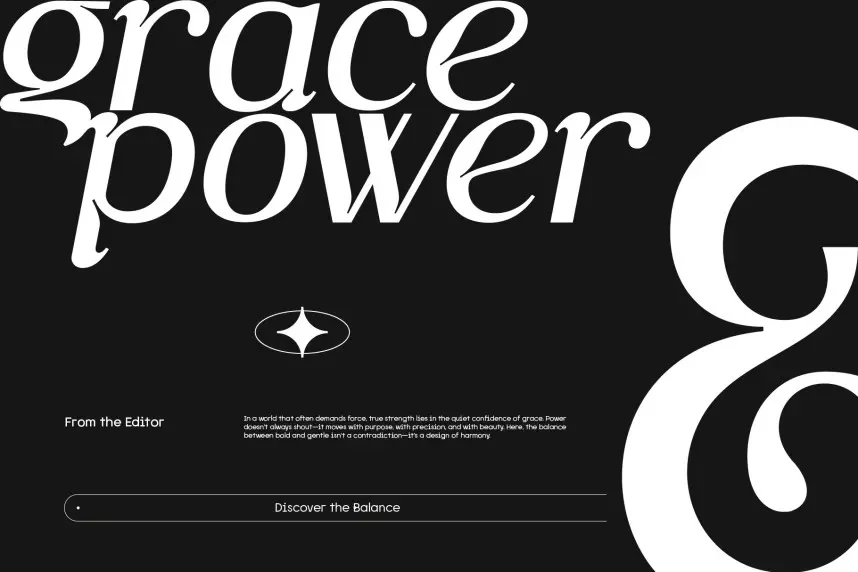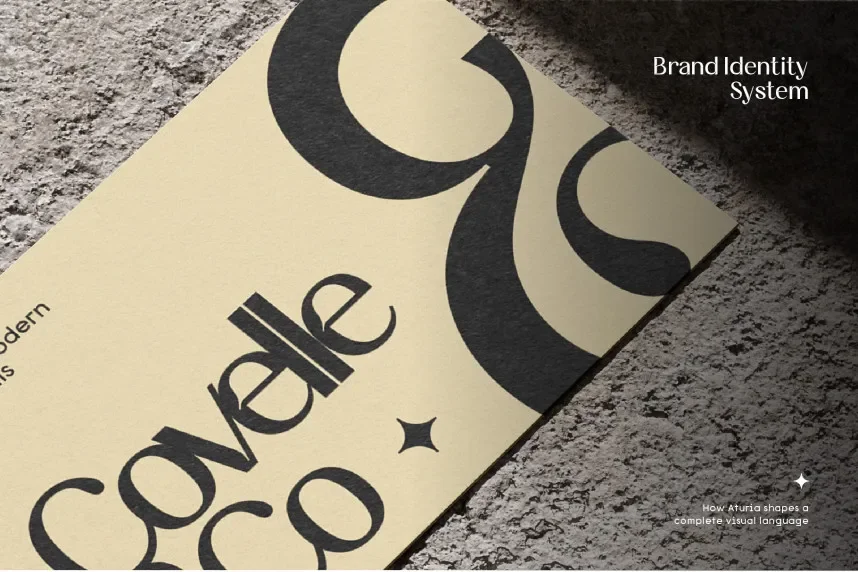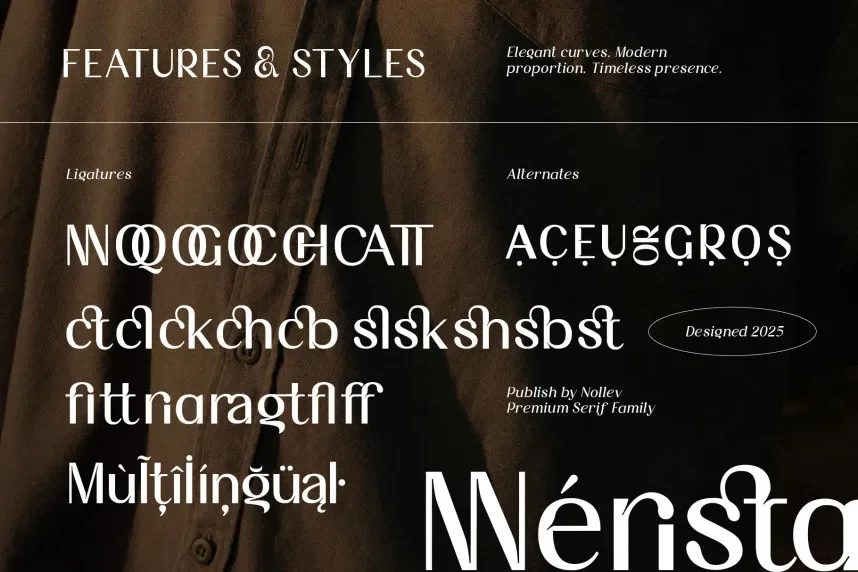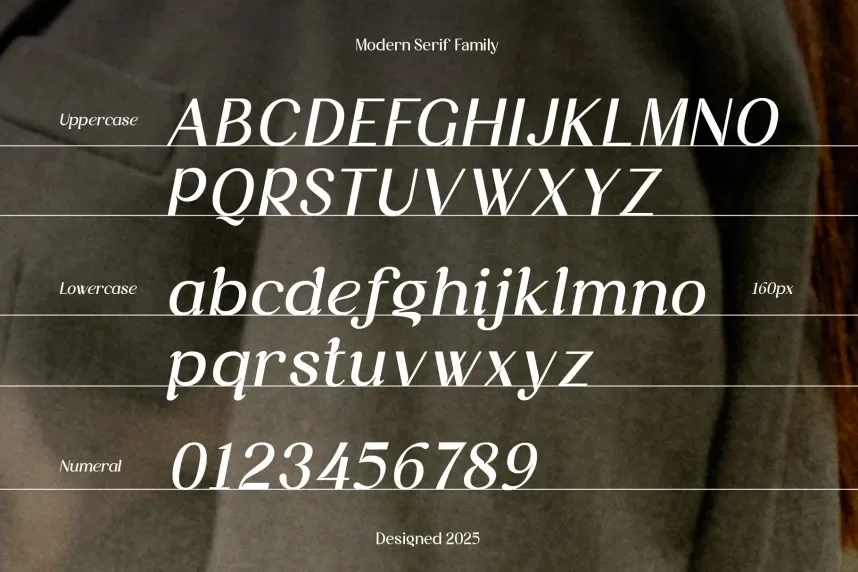
Aturia Font is a modern sans-serif typeface designed to improve readability and maintain visual consistency across branding, websites, and digital interfaces. It addresses design challenges like creating clear, professional layouts without compromising style in headings, UI text, or promotional materials.
Aturia features clean, geometric letterforms with uniform stroke widths and open counters. Its minimal curves and precise alignment support legibility in both print and digital formats. The font includes uppercase, lowercase, numerals, and basic punctuation, making it versatile for web design, logos, and social media graphics.